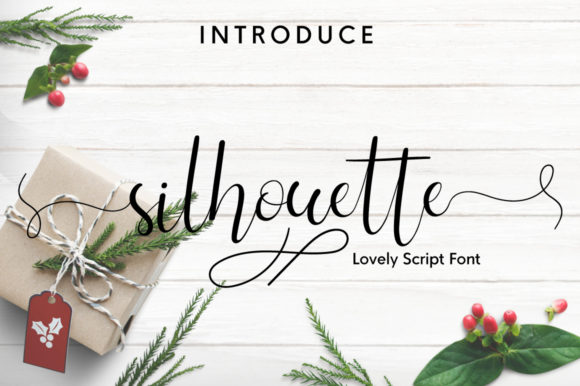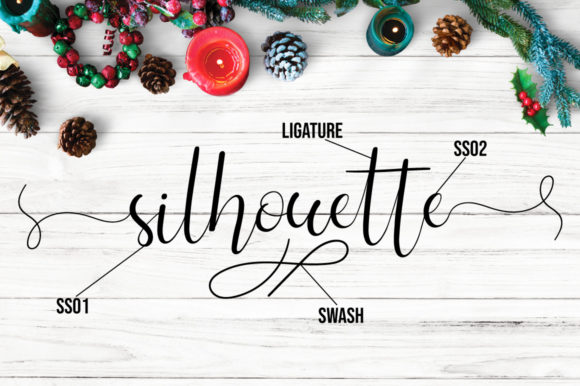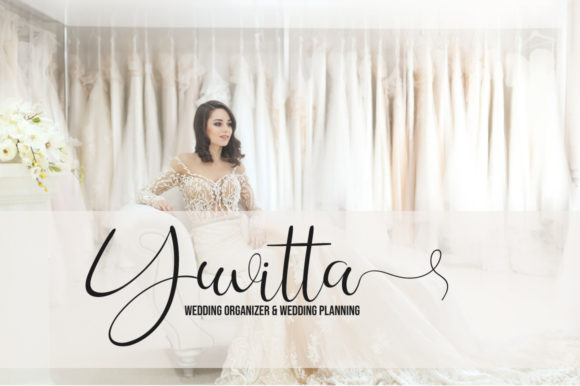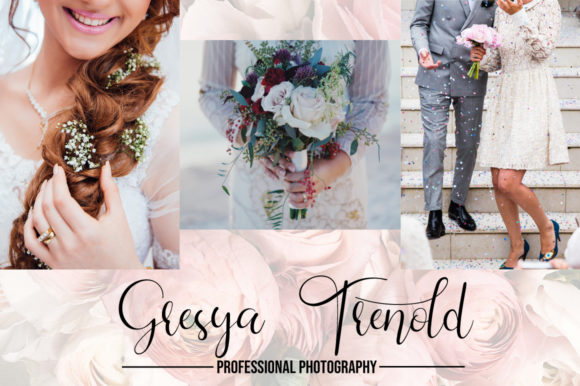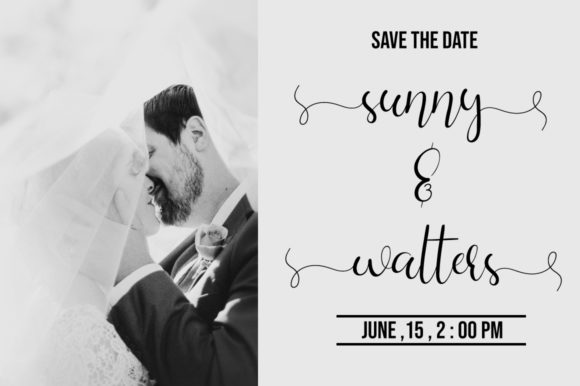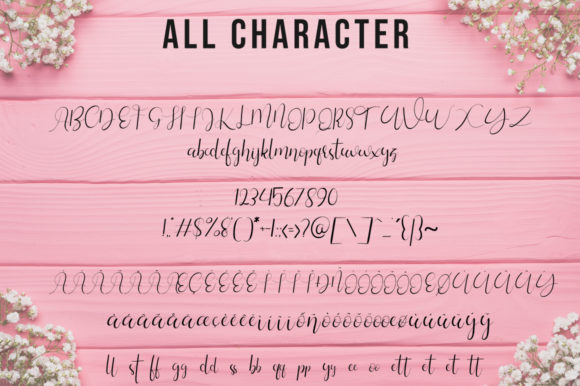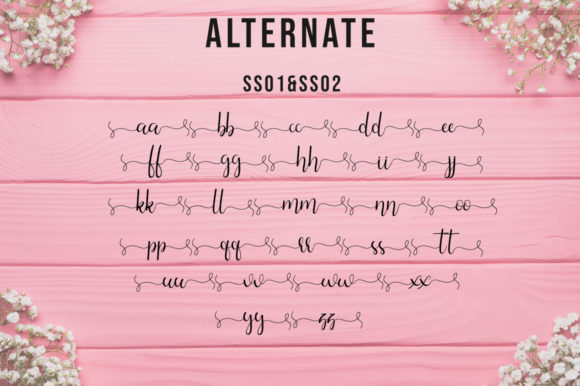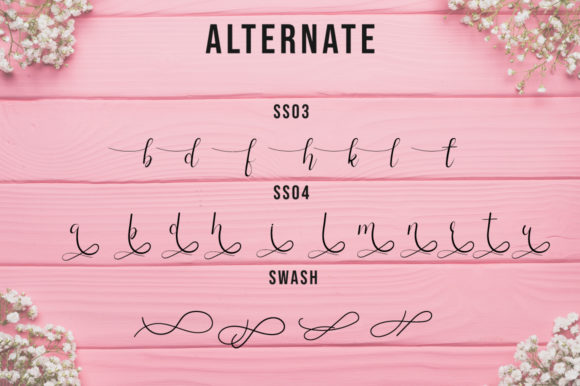
Silhouette Font
About Silhouette Font
The Silhouette is a brand new typeface. It has a feminine feel that is perfect for creating elegant wedding invitations, signatures, and much more!